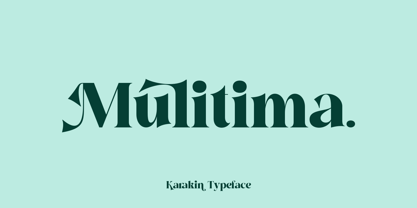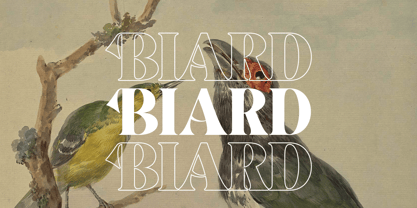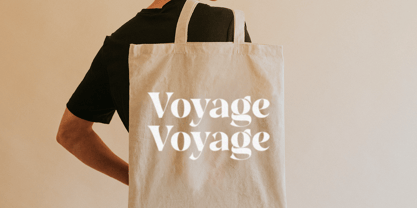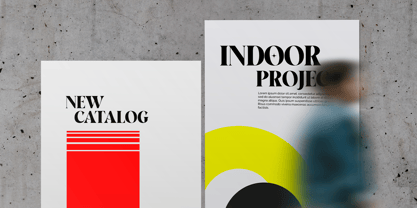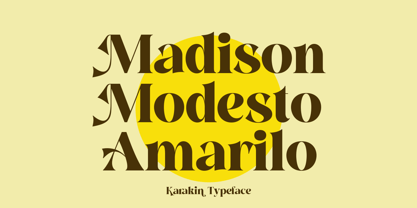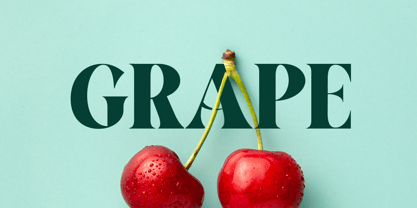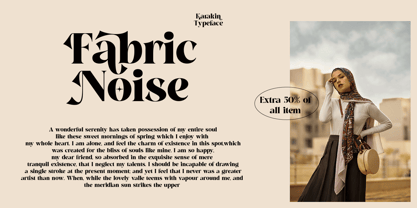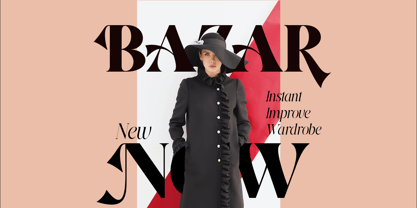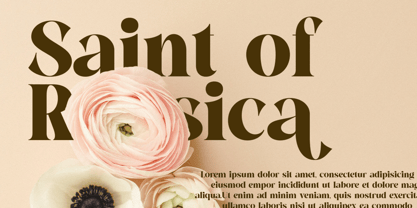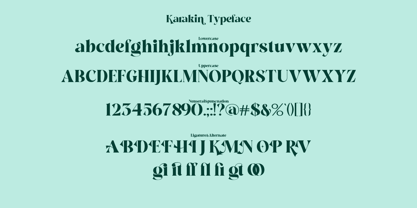
Karakin
The Karakin Font Family was designed by Amrullah Medan, Amrullah, Dedi Purwanto and published by Ably Creative. Karakin contains 1 styles. More about this family
Karakin is a bold serif font that combines strength and elegance in every letter. With a bold yet beautiful design, this font offers perfect consistency and is equipped with several alternate letters that provide creative variations. Karakin is ideal for corporate logo design needs, presenting a strong professional and classy impression. In addition, this font is also perfect for brochures and event promotional materials, providing a striking yet elegant appearance. The combination of boldness and beauty of Karakin makes it the right choice for designers looking for a balance between formal impressions and modern aesthetics, making every design project look stunning and full of character. Karakin has beautiful and elegant alternate letters, make sure your dream project becomes more attractive with the Karakin font